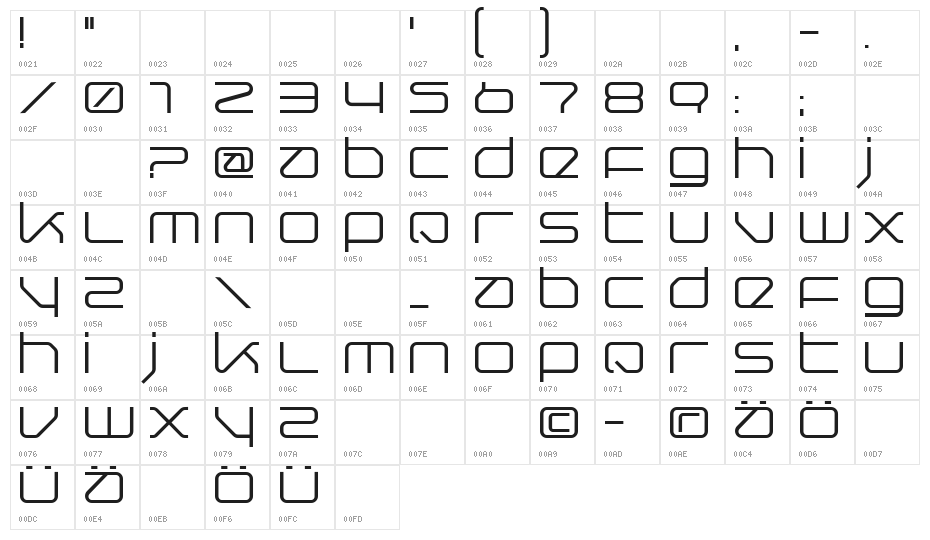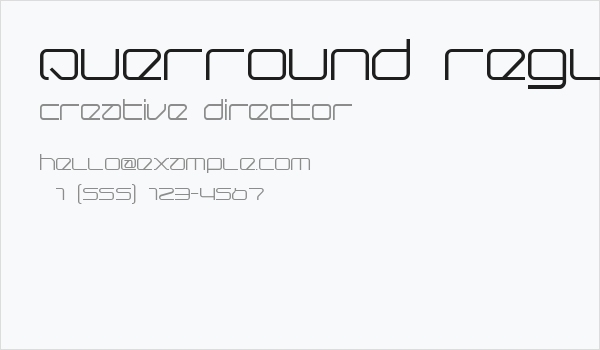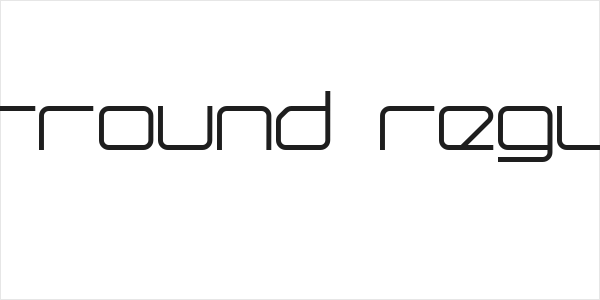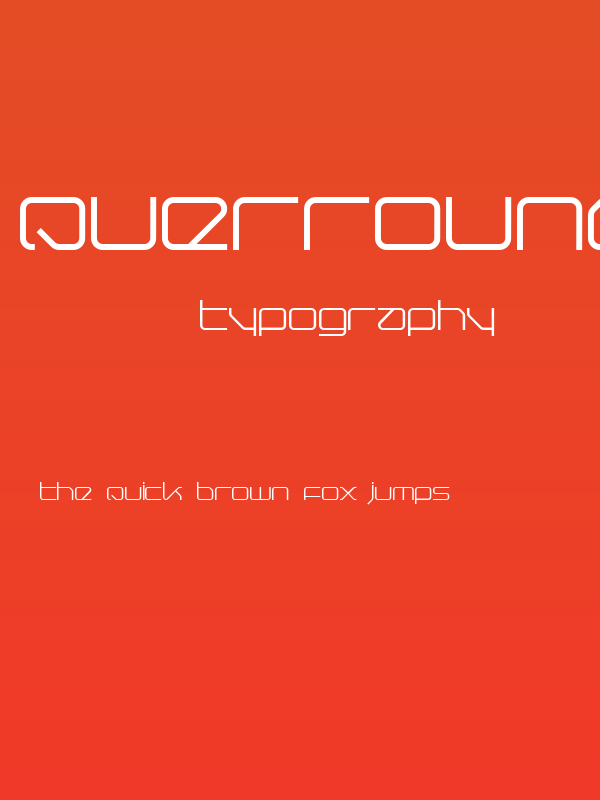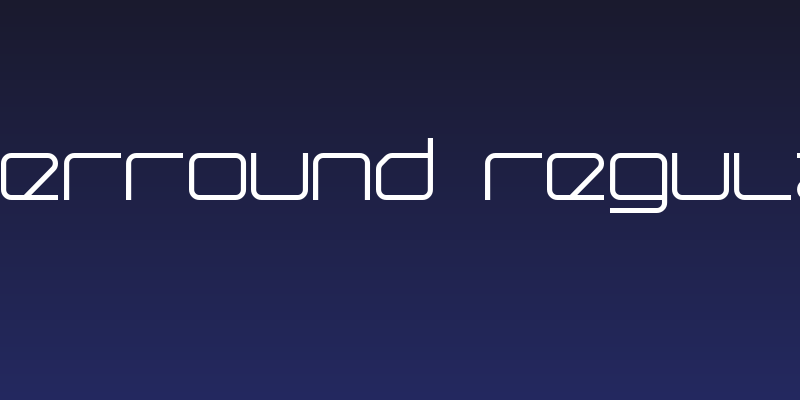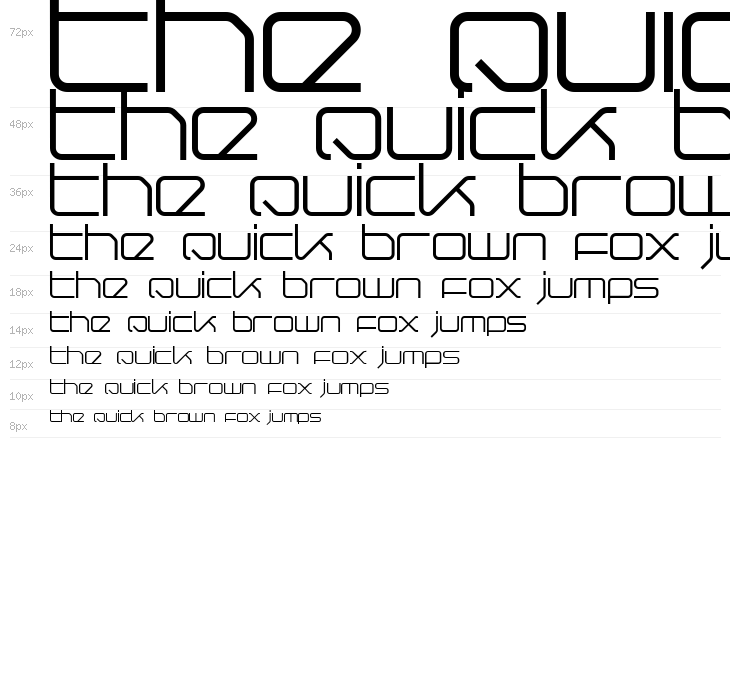
Querround Regular Font
Querround Regular Description
This font features a modern, geometric design with a distinct futuristic aesthetic. Each character is constructed with clean, straight lines and rounded edges, giving it a sleek and streamlined appearance. The uniformity in stroke width across all characters contributes to a cohesive and balanced look. The font's minimalist style is accentuated by its open counters and generous spacing, which enhance readability while maintaining a unique visual appeal. Its contemporary design makes it suitable for digital interfaces and modern branding projects.
| Use Case | Logos, Headlines, Digital interfaces |
| Proposed Projects | Ideal for tech branding, digital interfaces, modern advertising, and futuristic design projects. |